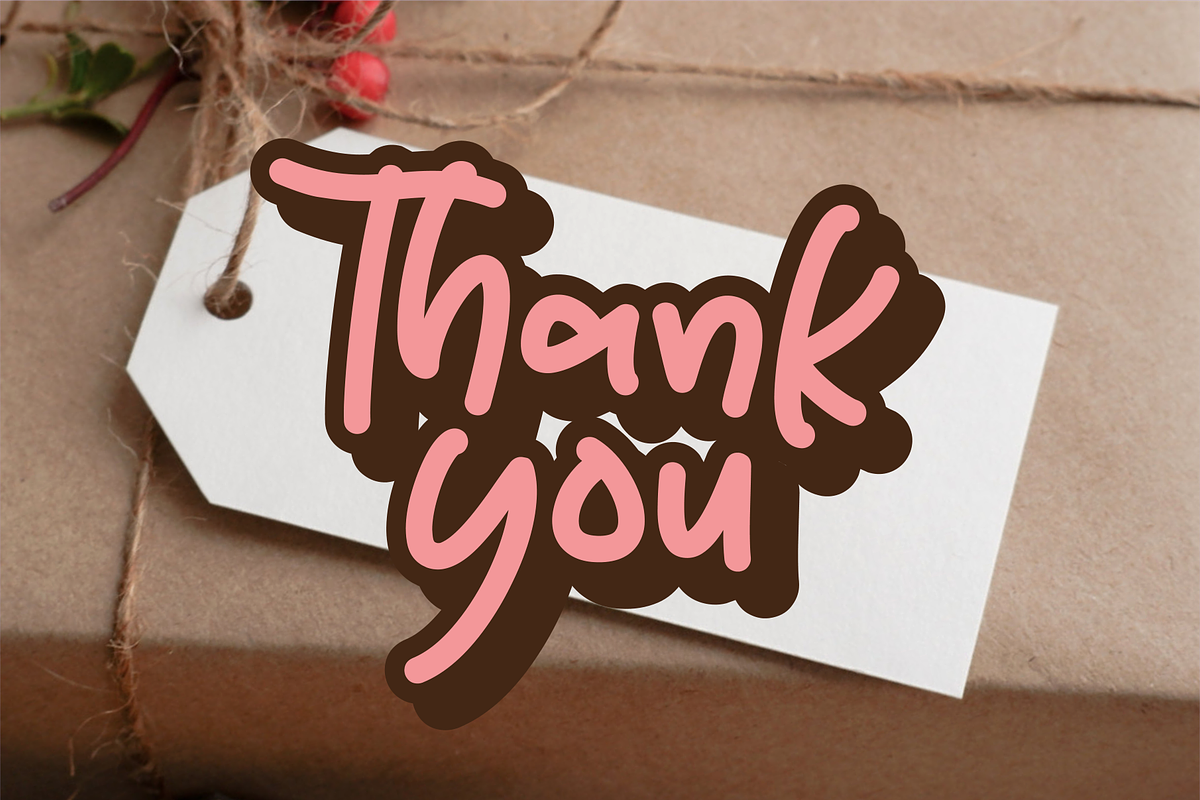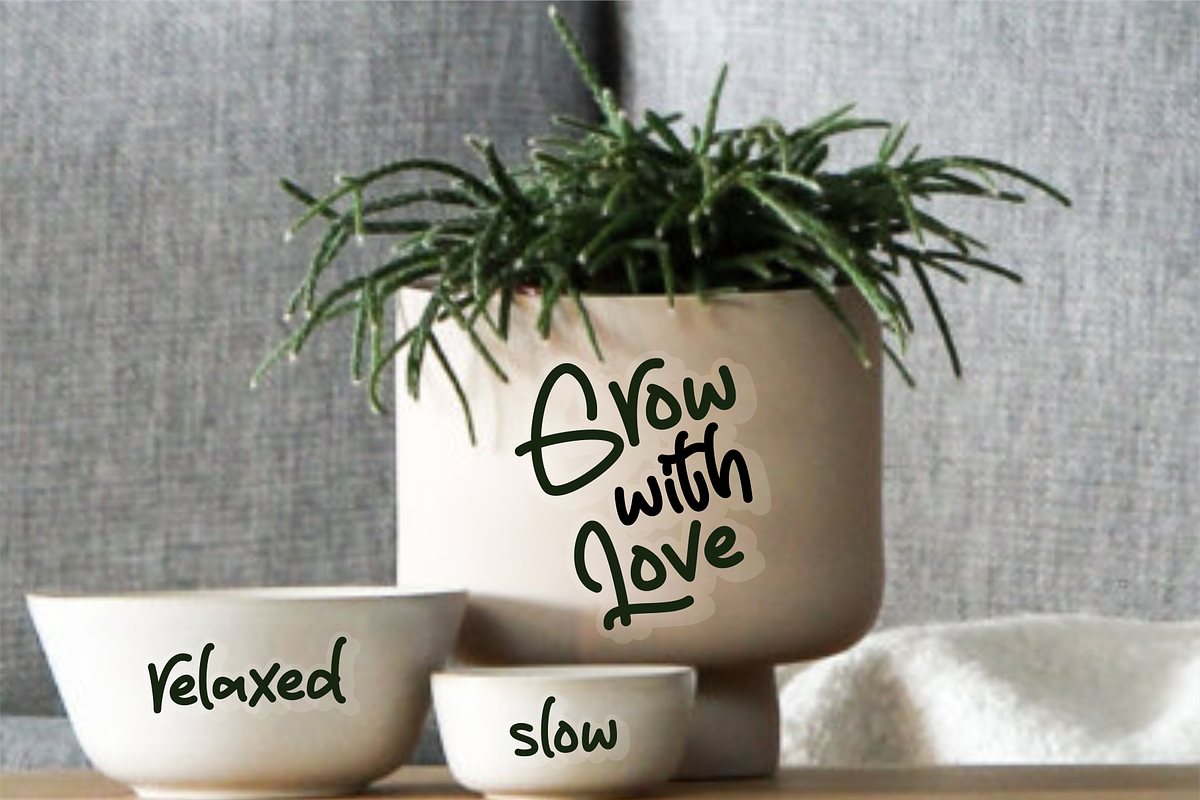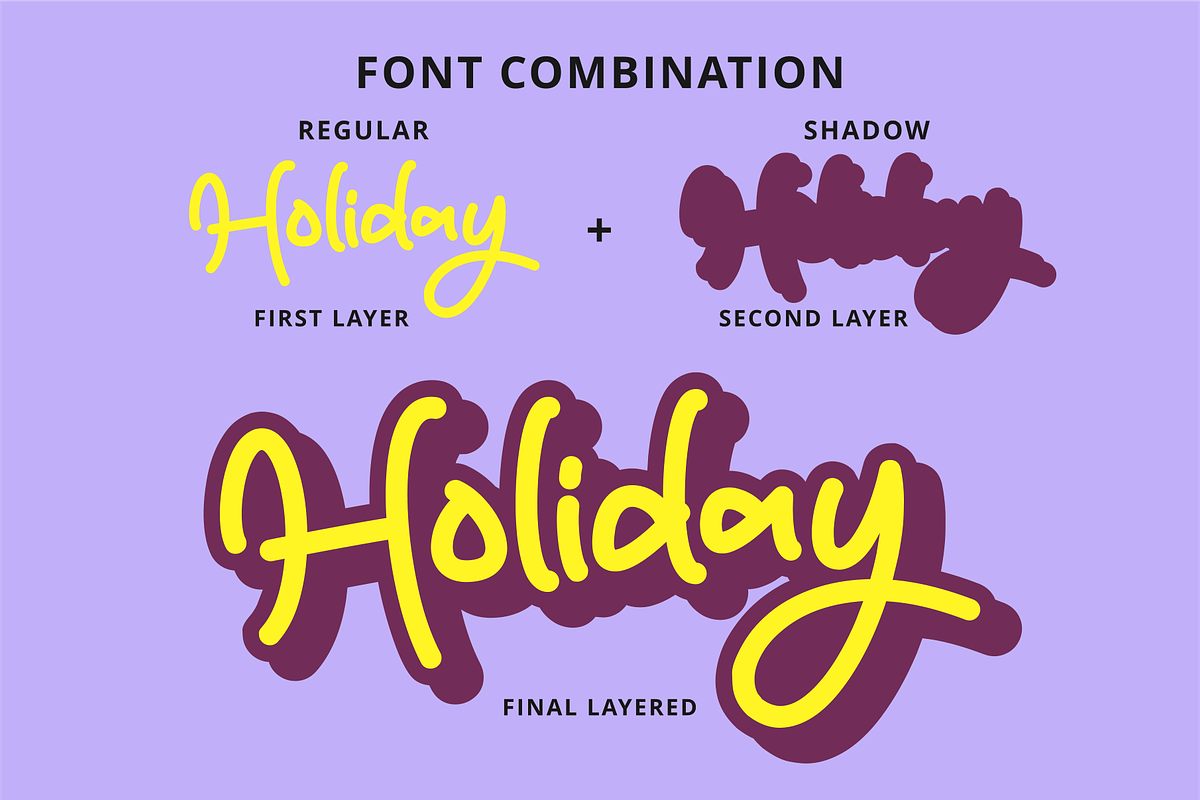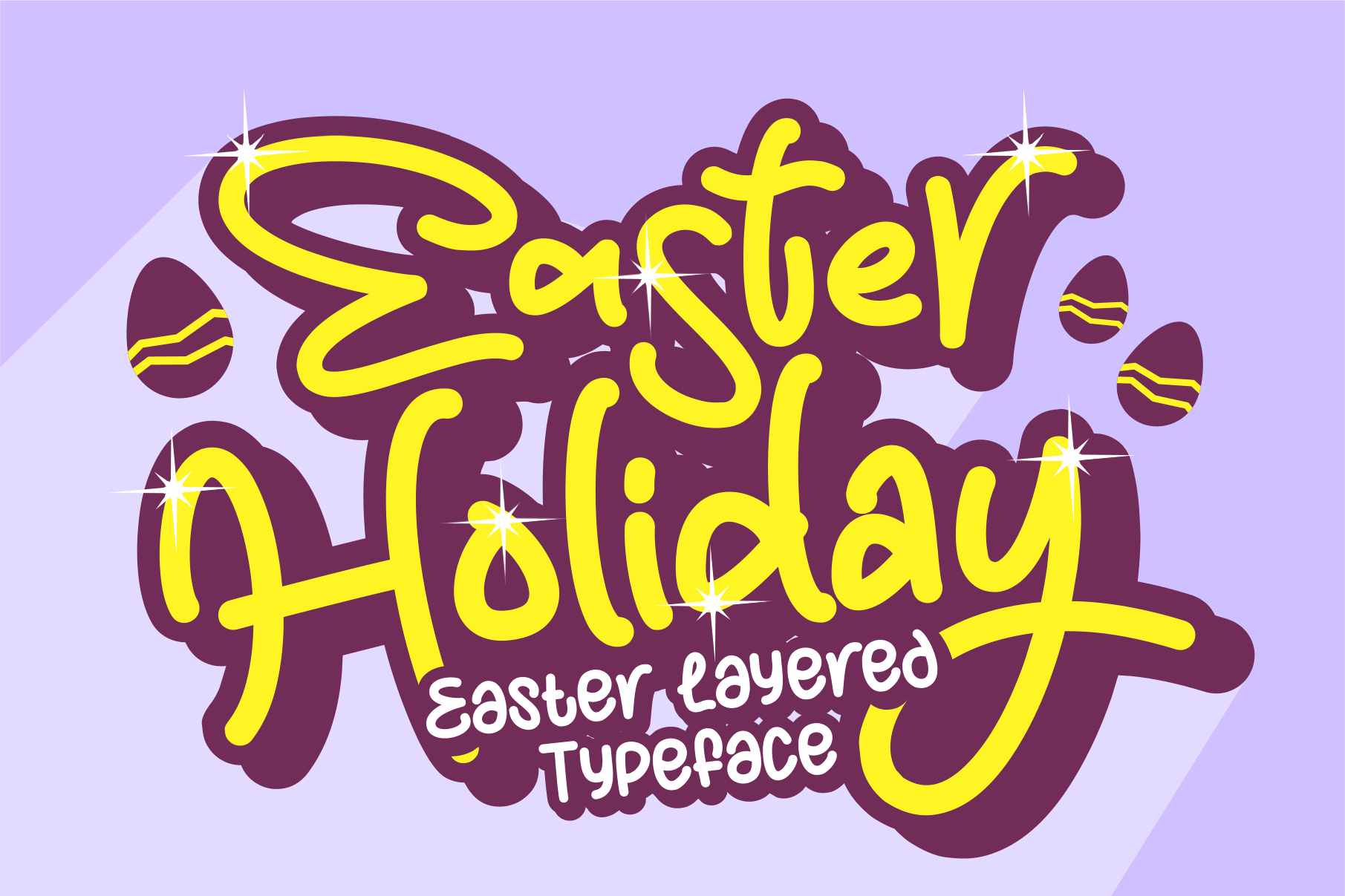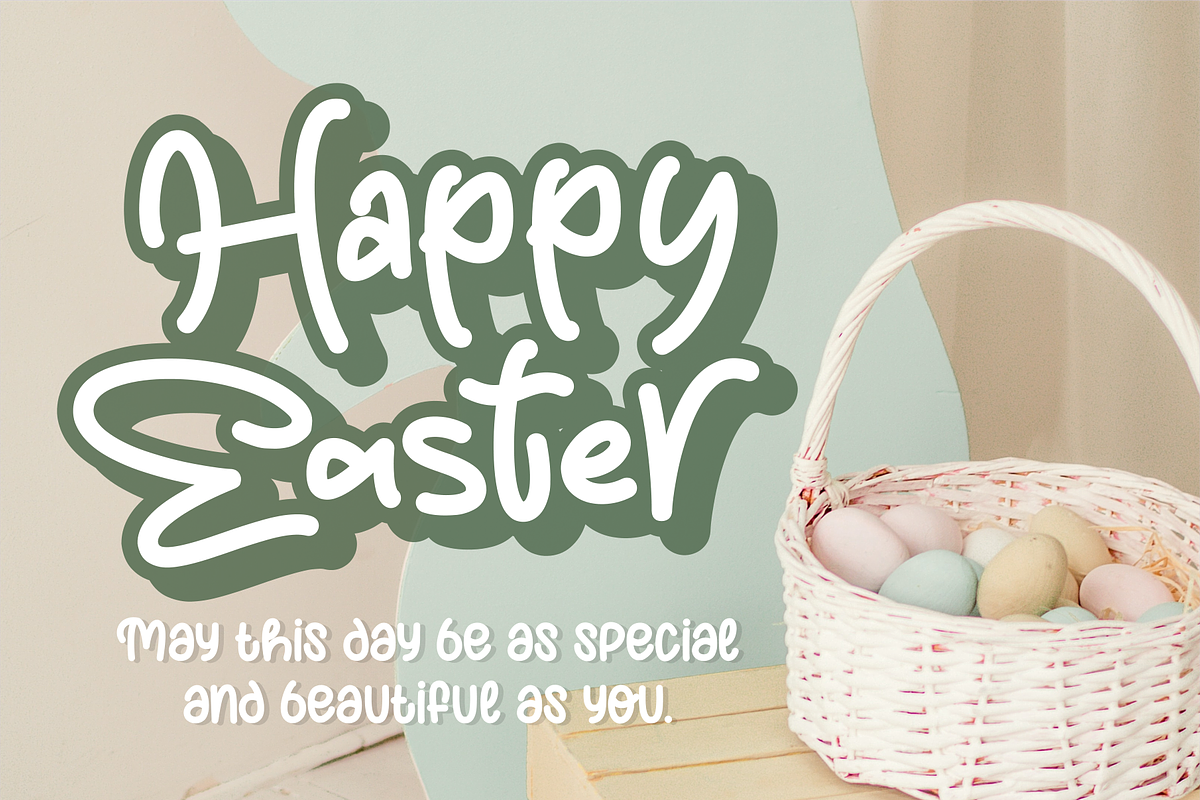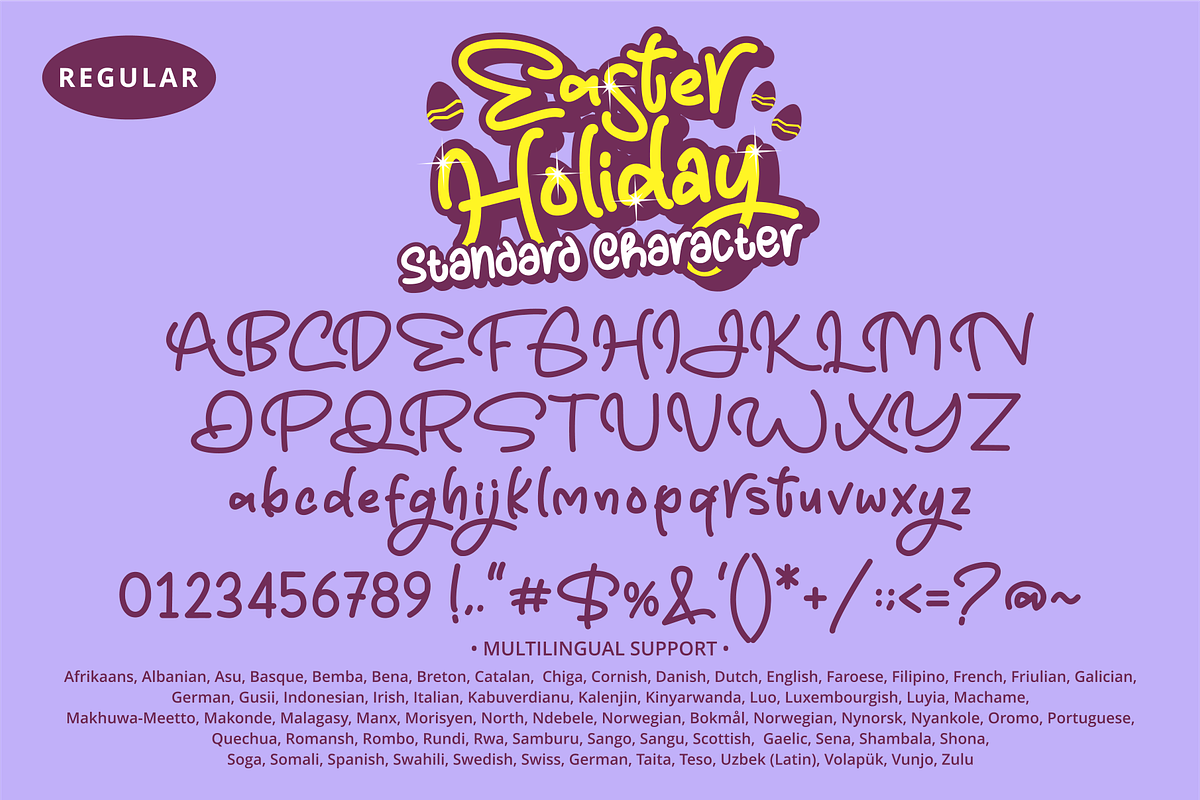
Easter Holiday Font
Easter Holiday is a cute handwritten layered font. Easter Holiday is perfect for quotes, headings, blogs, logos, t-shirts, labels, and more! This font is also great for children’s designs!